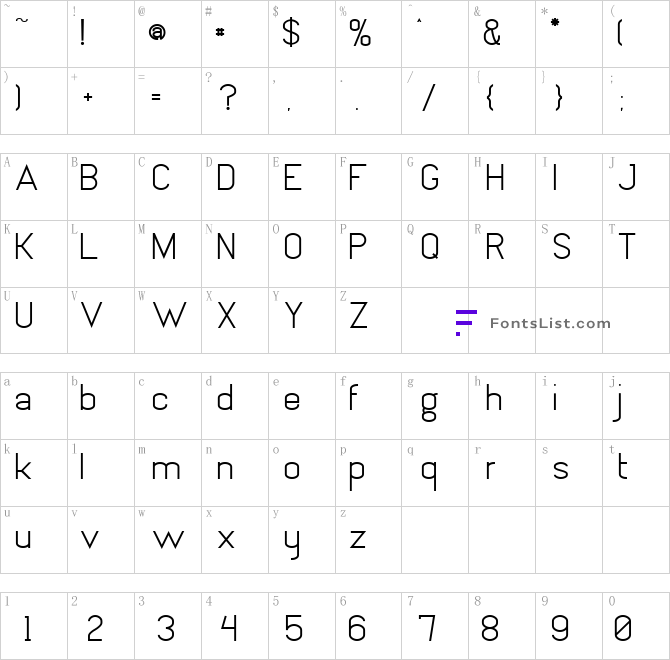
- Font Name:Alto Voltaje
Alto-Voltaje.ttf is a very beautiful artistic font, Alto-Voltaje.ttf is widely used in the design and printing of various books and pictures,Alto-Voltaje.ttf has a strong visual impact,Alto-Voltaje.ttf is a commonly used font in newspapers, magazines and books, and is used in posters, e-commerce Poster design, store design, logo design, font design and other fields.Alto-Voltaje.